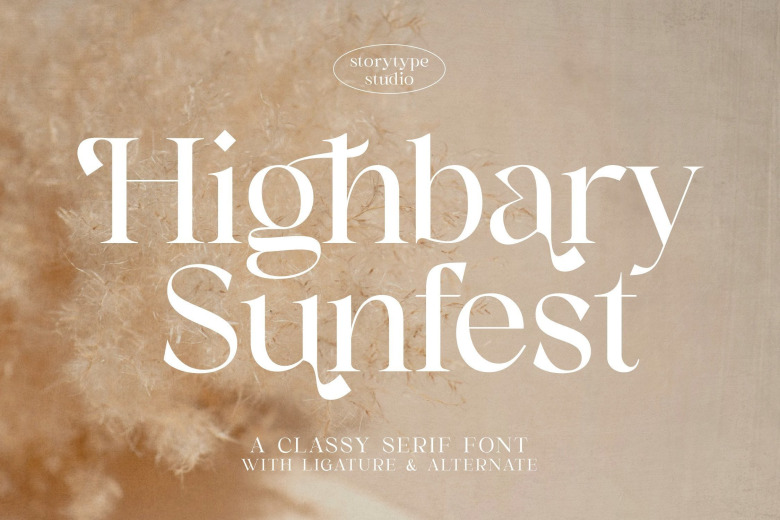
Highbary Sunfest Font
Highbary Sunfest is classic serif font with unique style and modern look. It is ideal for elegant & upscale logos, book or movie title design, fashion brand, magazines, clothes, lettering, quotes, etc.
Highbary Sunfest Serif Font